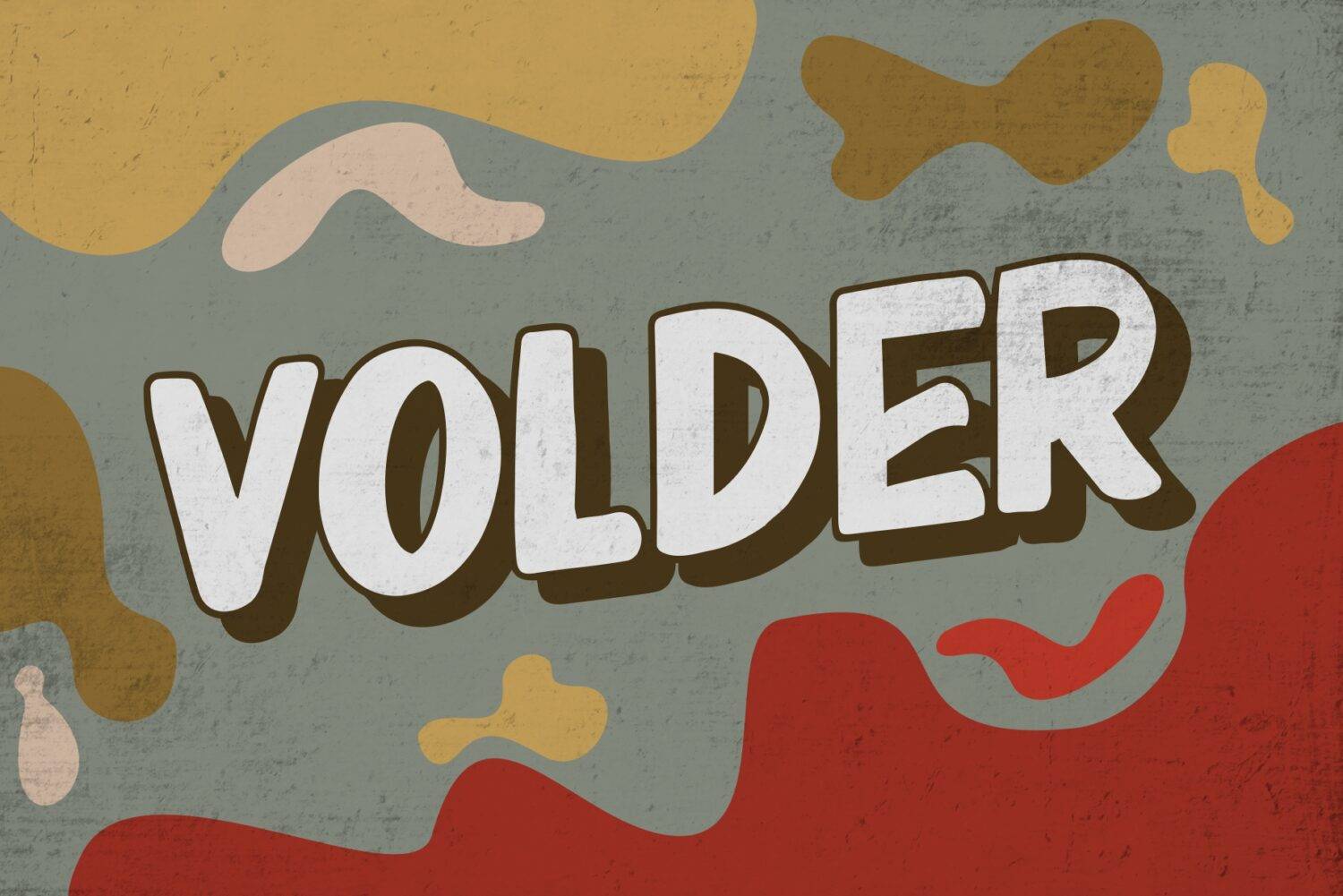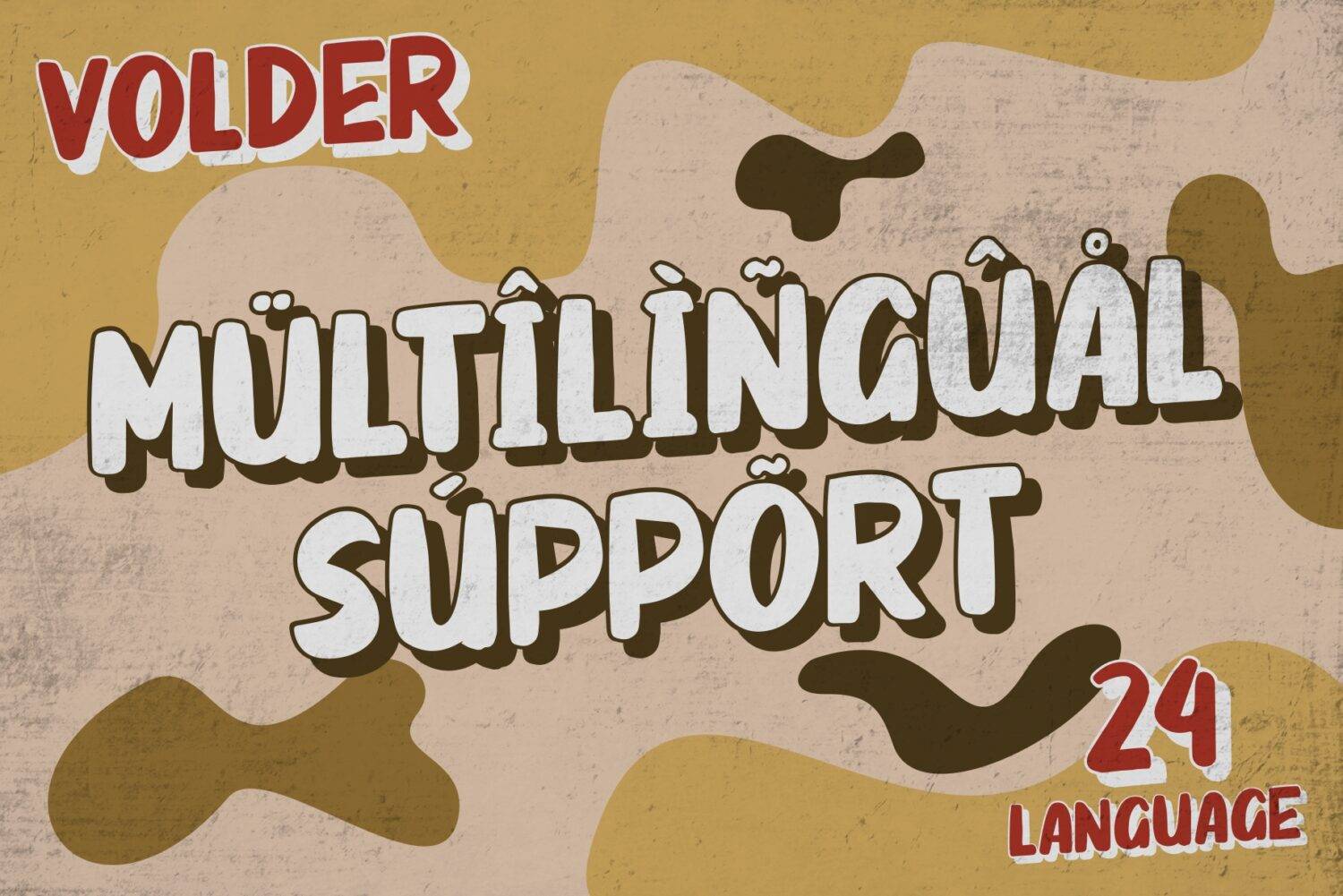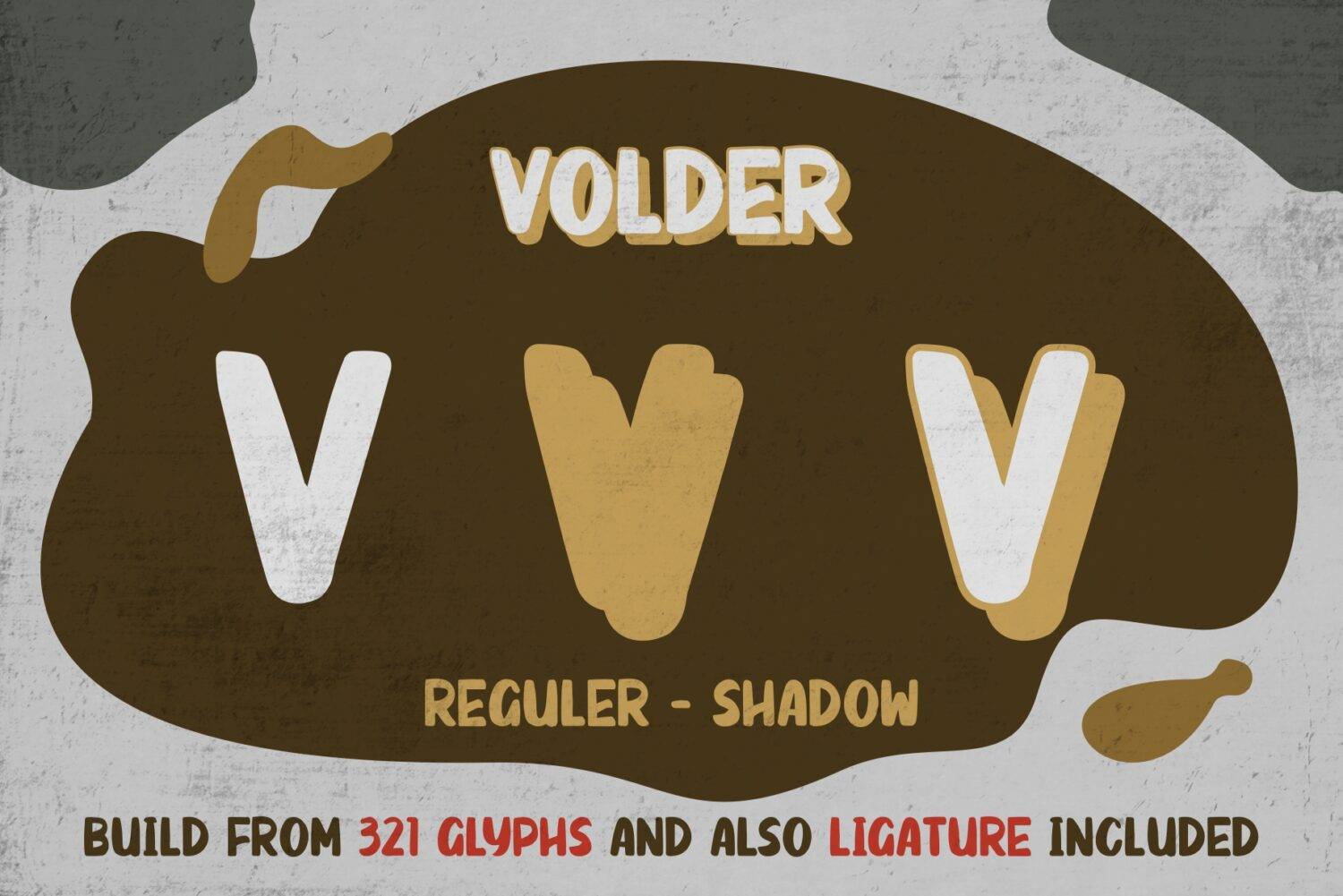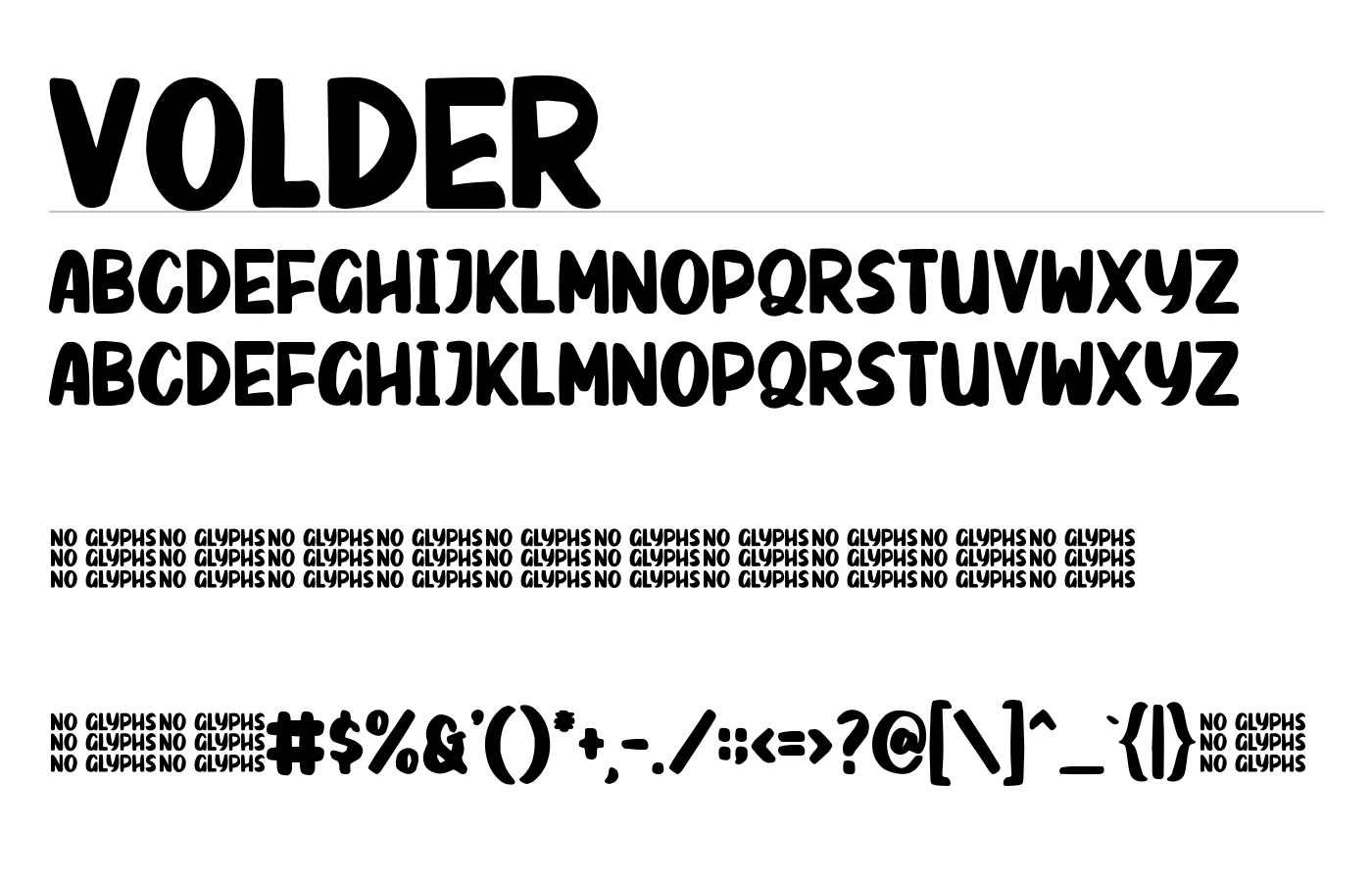
Volder is a bold, playful sans serif font with a hand-drawn feel, featuring rounded, irregular shapes that create a friendly and approachable vibe. Its thick strokes and informal letterforms make it ideal for fun, casual designs like children’s books, posters, or creative branding where a lively, energetic personality is desired. This font works best in headlines and expressive display uses where charm and uniqueness are key.
Volder Font
About Volder Font